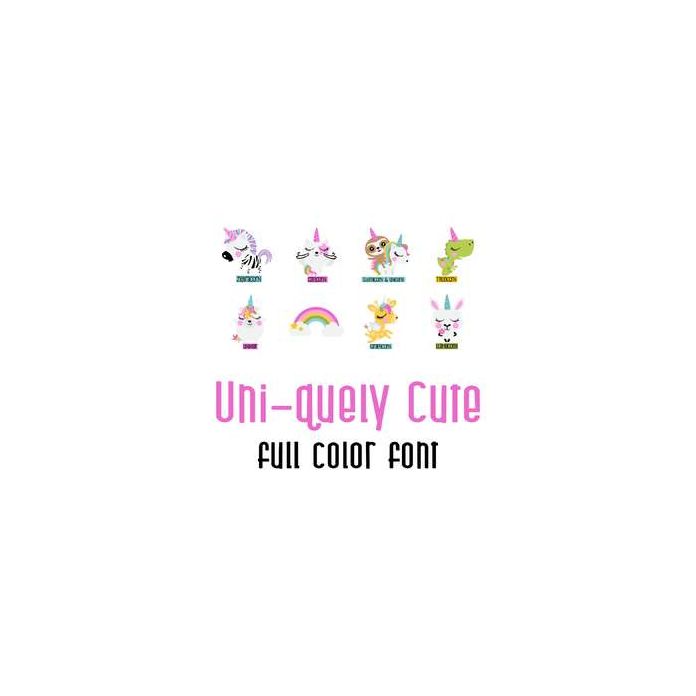
This adorable full color doodlebat font features unicorn-animal combinations. Perfect for cards, crafts, gifts, decor, scrap book pages, planner stickers and more!